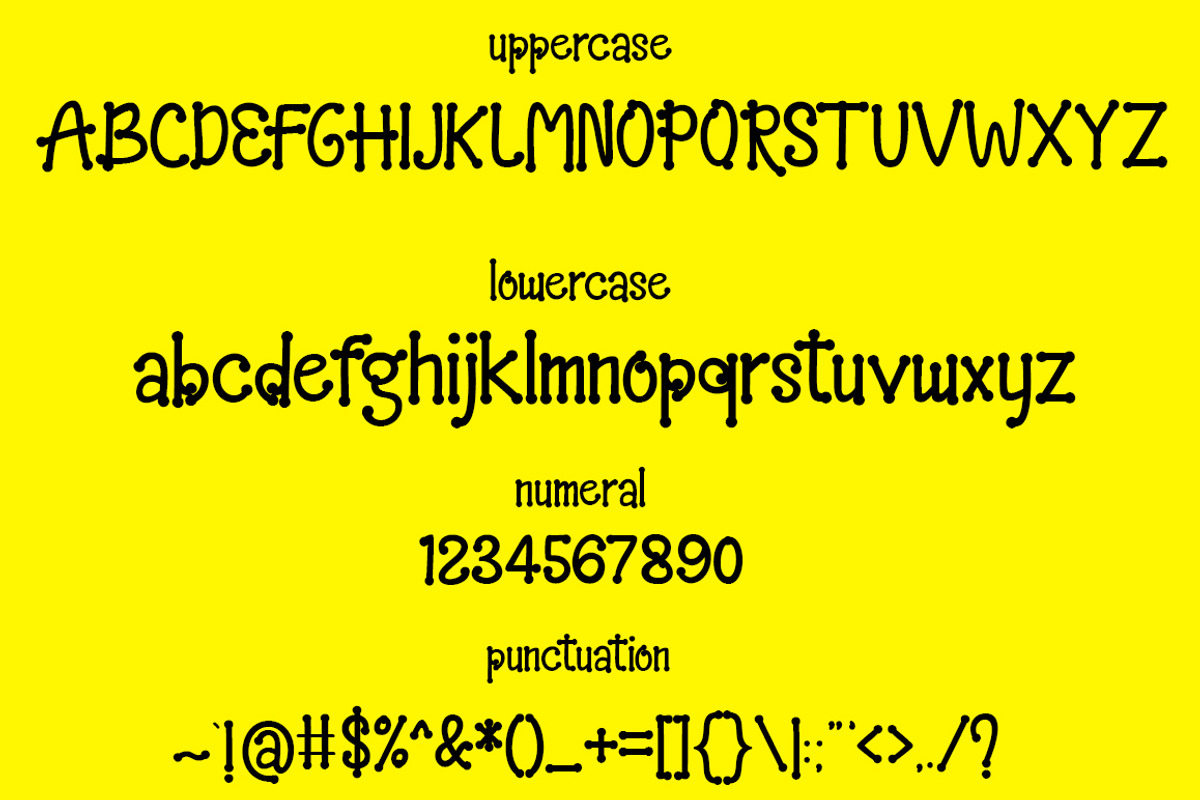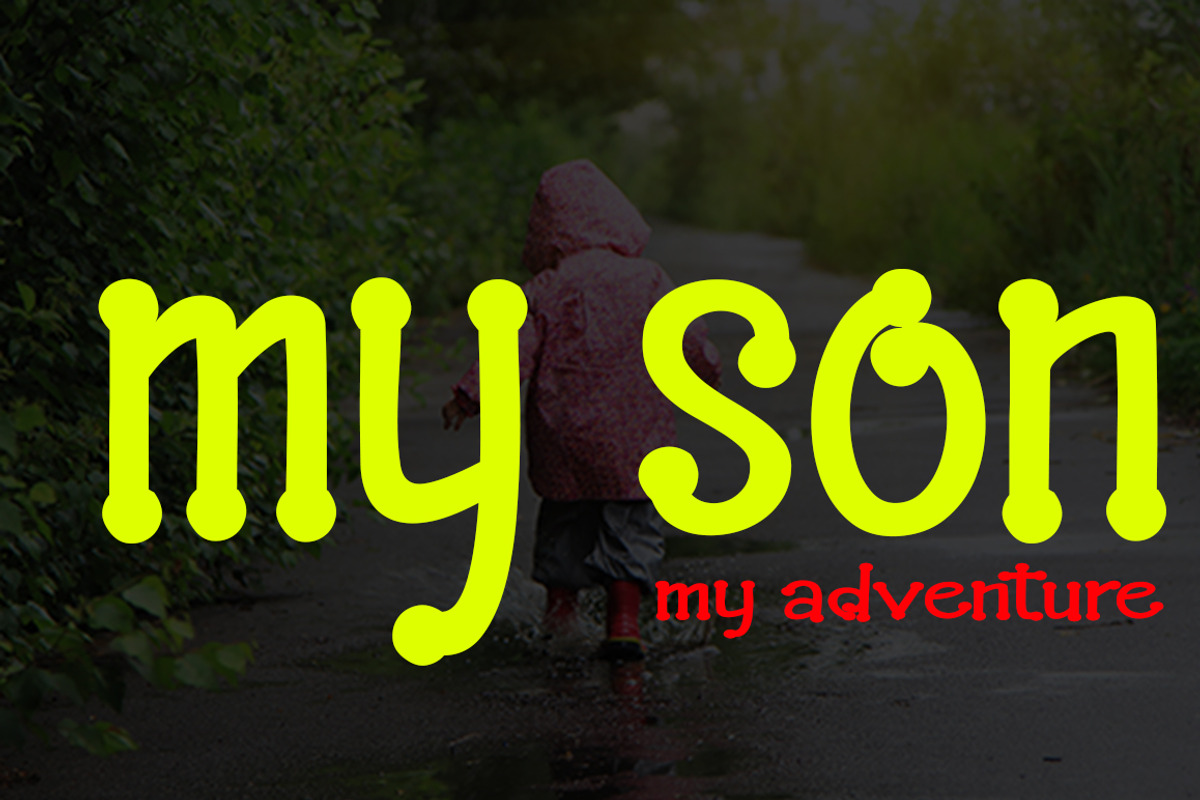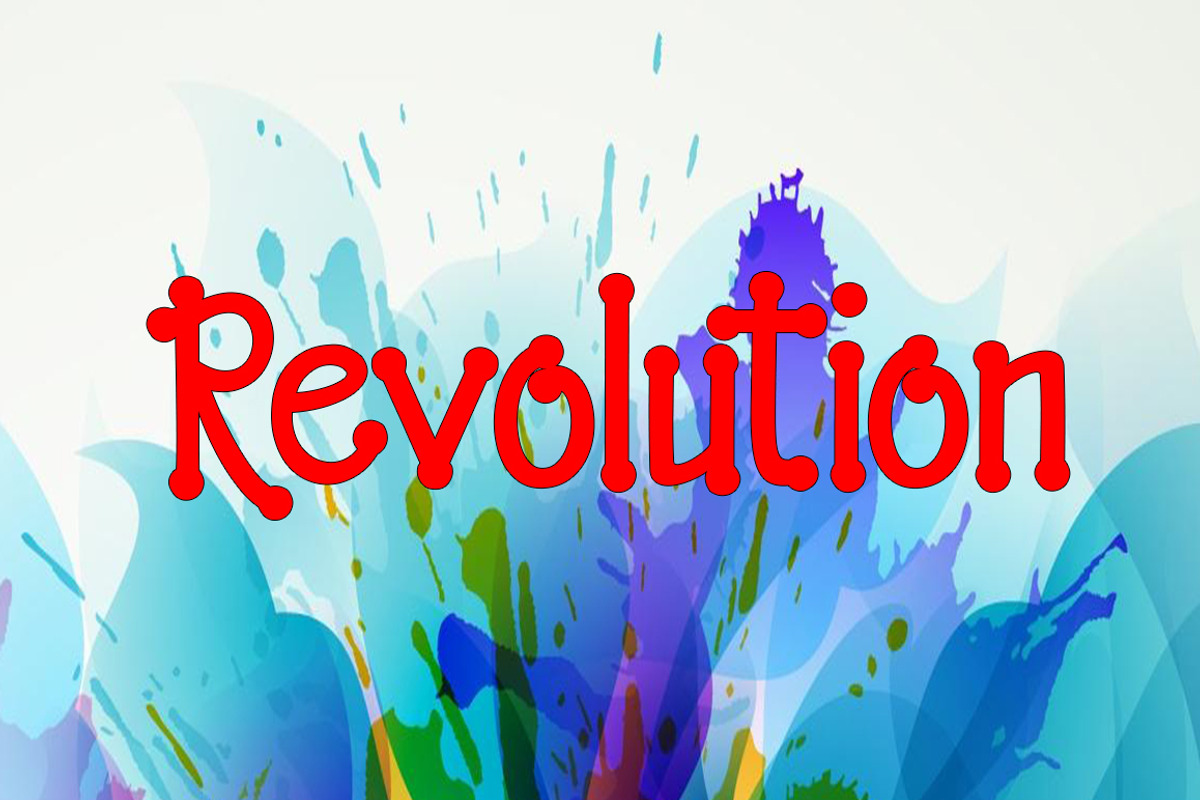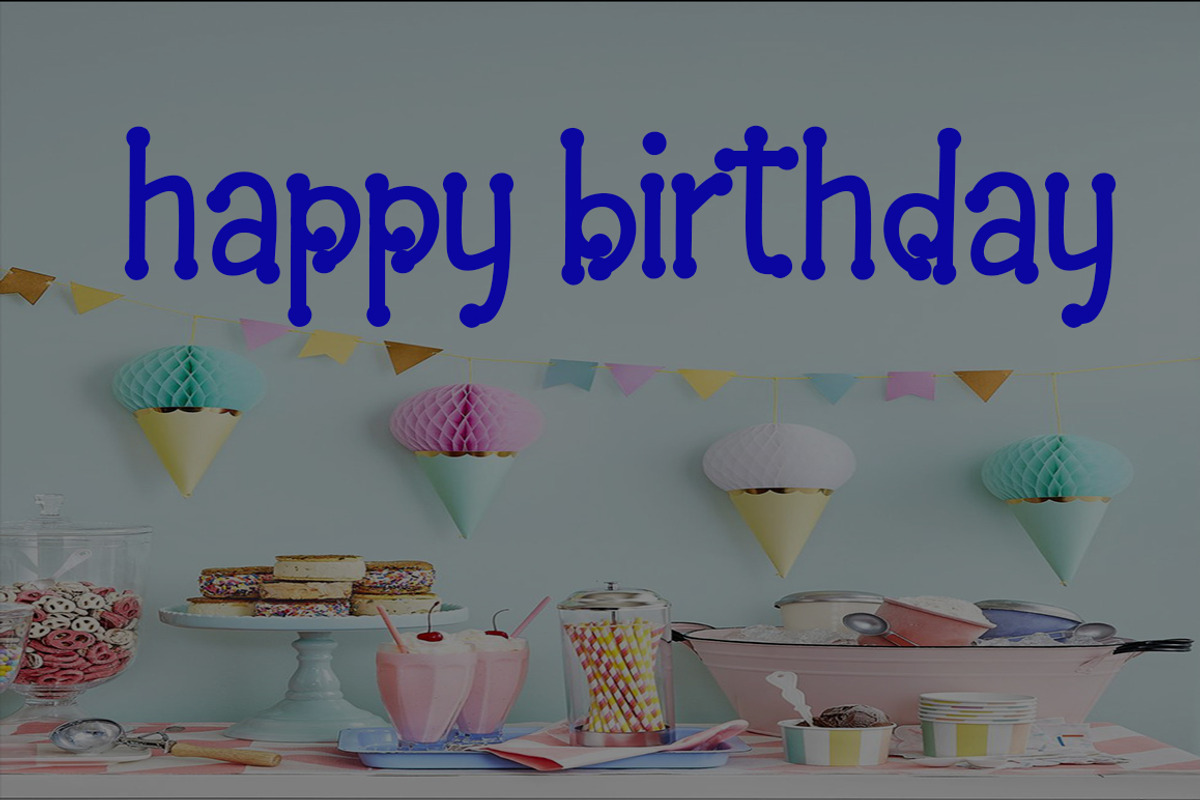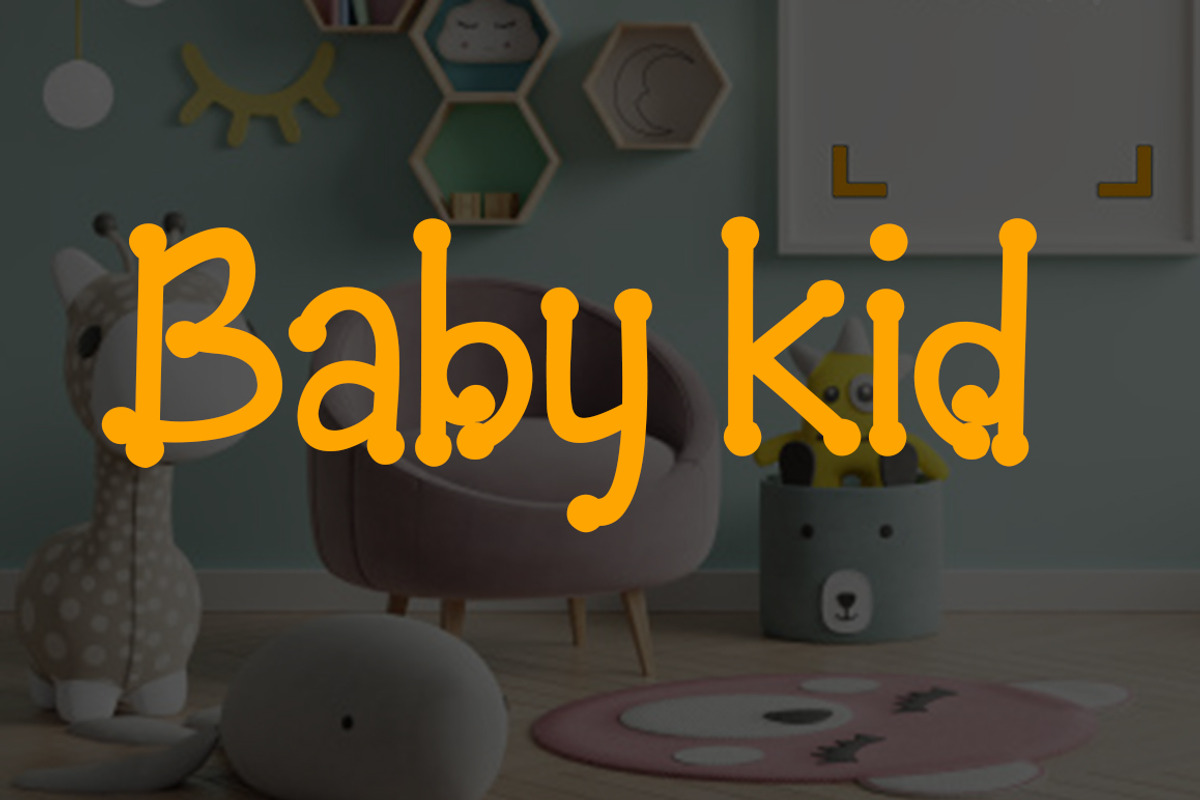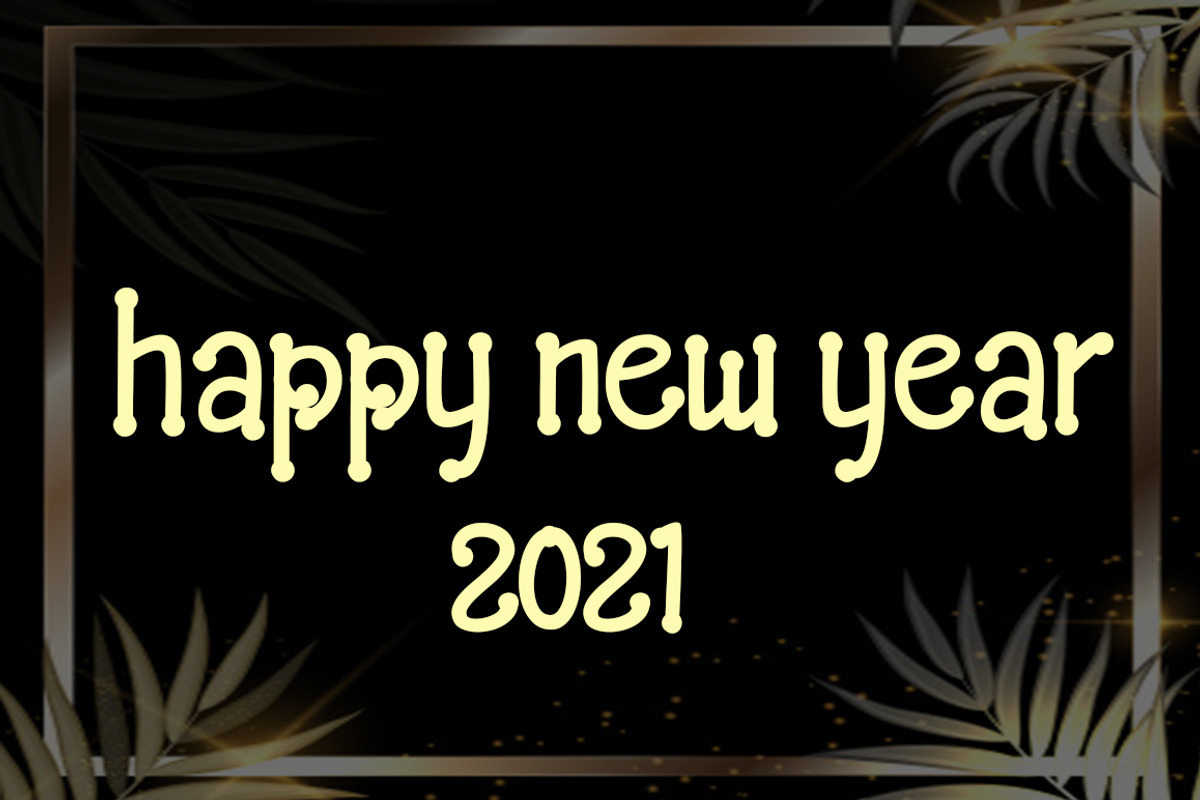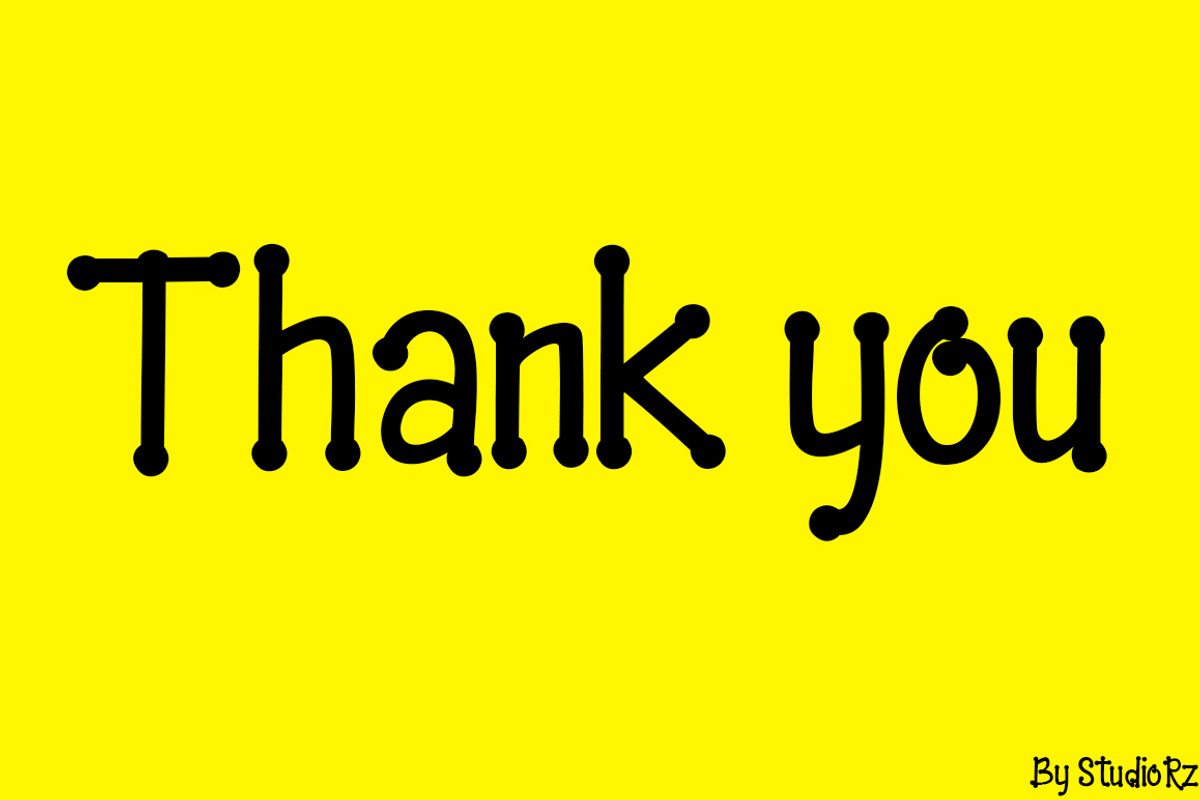
Revolution
Revolution Font Display are Revolution Regular stylish calligraphy that have a varied base line, fine lines, classic and elegant touches. Can be used for various purposes. Such as title, signature, logo, wedding invitation, t-shirt, letterhead, nameplate, label, news, poster, badge etc.
Revolution Display displays alternate characters. Includes initial letters and terminals, alternatives, ligatures and multiple language support.
a font that made the hand by having the character up and down like a dancer. Revolution has a very unique style of calligraphy, it is very suitable for use in the work of modern design.